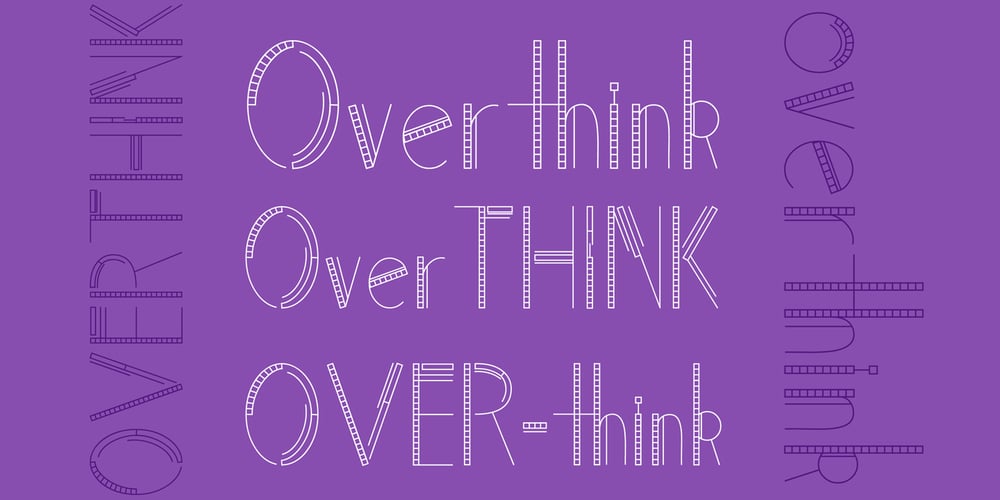
Overthink
Overthink font
Overthink Font Family was designed by Rupal Hira and published by WTFont. Overthink contains 1 styles and family package options. Often it is hard to express ourselves and our emotions. Thus, the idea of emotional typography and fonts was born. This is a detailed font with many lines and shapes. It has been designed to reflect the feeling of overthinking. Overthinking, by nature, is done by logically thinking through all the different scenarios and outcomes for one particular thought or situation. Therefore the appearance of this font is one that is structured and technical. This font is great for architecture, buildings, construction, geometry or even for situations that are heavily detailed! It definitely works great as an overlay on images or photographs. Pair this overthink font with a simple sans serif font to contrast against the details in the former. We hope you enjoy this font as much as we do!